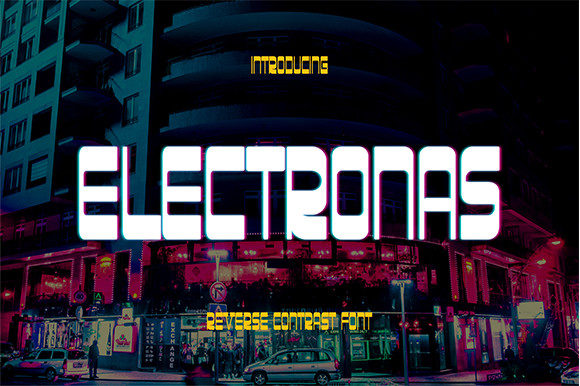
Behold, Electronas Font, a display font that exudes modernity and uniqueness, ready to transform your designs into captivating masterpieces. Its squared letters and robotic demeanor demand attention, making it the perfect choice for web designs and business cards that leave a lasting impression.
Imagine your website adorned with Electronas Font, its sharp angles and clean lines guiding visitors through a futuristic landscape. Each click and scroll becomes an adventure, as the font's distinctive character adds an undeniable touch of sophistication to your digital presence.
But Electronas Font's allure extends far beyond the realm of digital creations. Its versatility knows no bounds, making it an ideal companion for invitations, posters, and any other printed material that seeks to stand out from the crowd. Let your creativity soar as you craft wedding invitations that radiate elegance, or design posters that command attention with their bold and eye-catching presence.
With Electronas Font, you unlock a world of possibilities, where your designs transcend the ordinary and embrace the extraordinary. Its unique style captivates audiences, leaving an unforgettable mark on their minds.